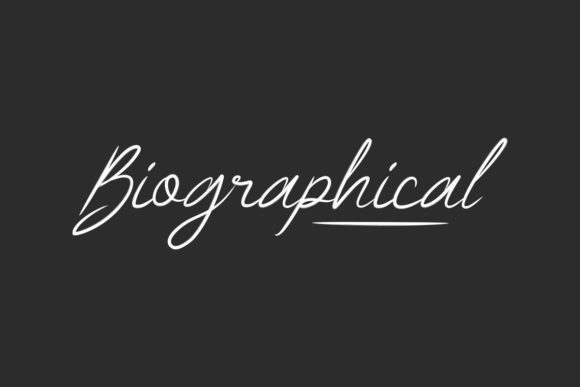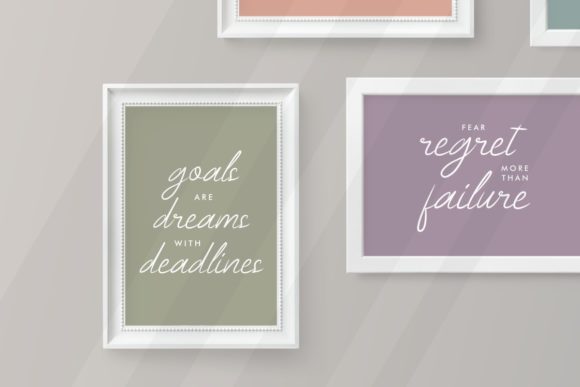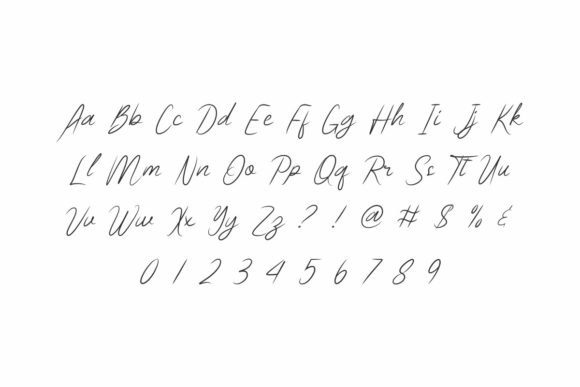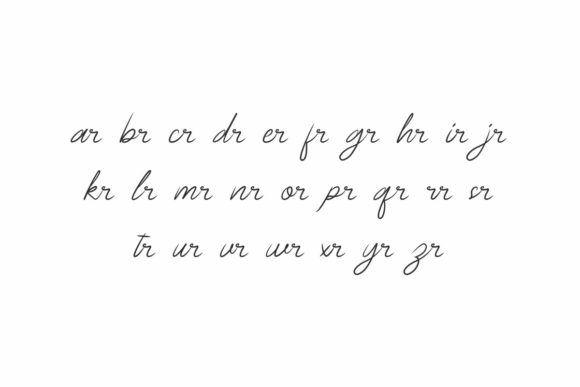
About Biographical Font
Biographical is a stylish signature handwriting font which is combining modern and classic typography with an elegant look. This font is PUA encoded which means you can access all of the glyphs and swashes with ease.